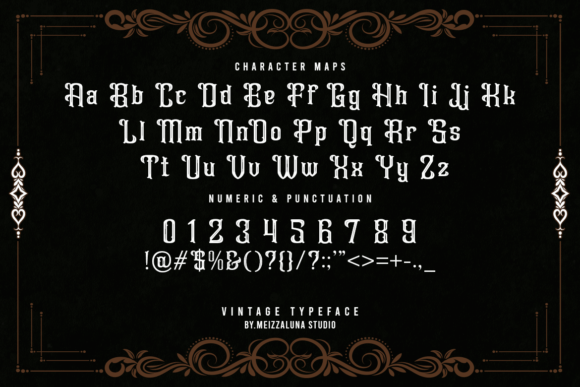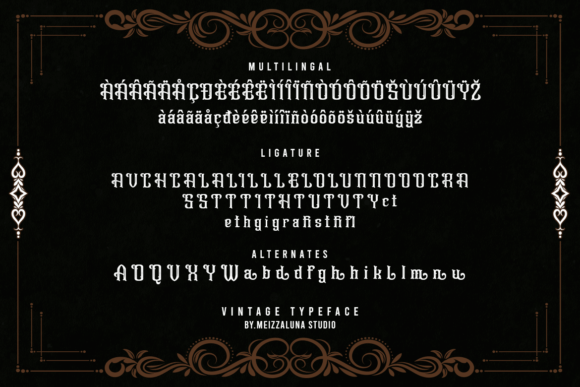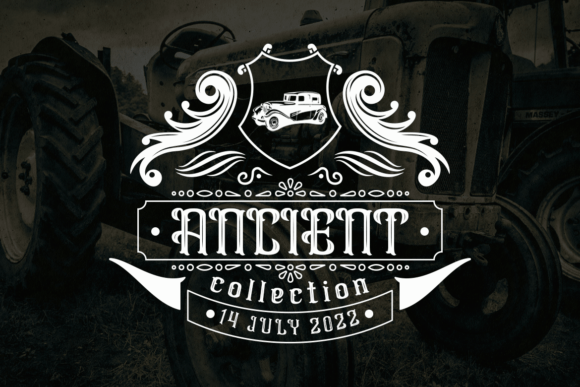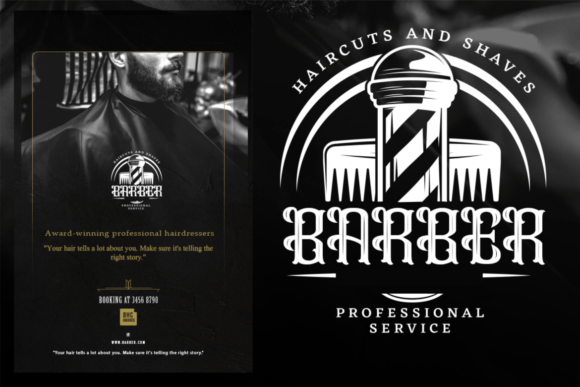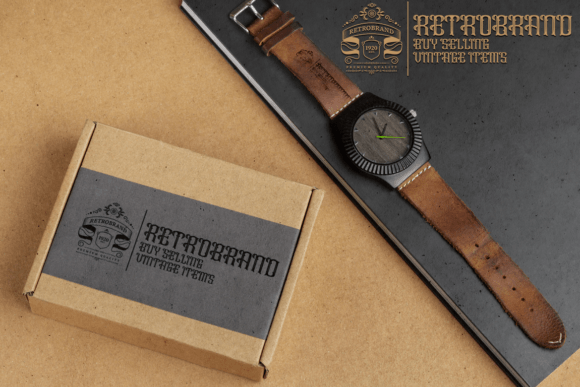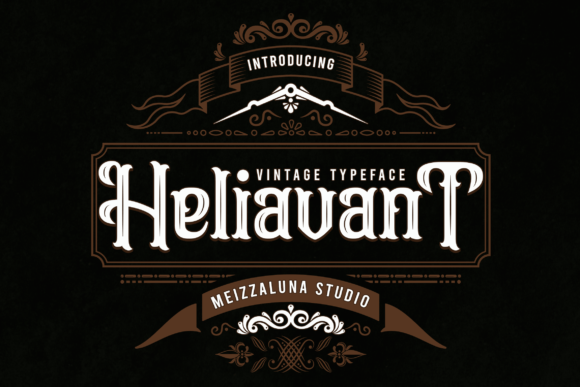
Heliavant Font: Elevate Your Designs with a Touch of Moody Elegance
In the world of typography, fonts play a crucial role in setting the tone and aesthetic of a design. For creative projects that exude a moody, solemn, Victorian, or retro vibe, Heliavant Font is an exquisite blackletter font that can add a touch of sophistication and elegance. In this article, we’ll dive into the features and benefits of Heliavant Font, and explore how it can elevate your designs to new heights.
What is Heliavant Font?
Heliavant Font is a beautifully crafted blackletter font, designed specifically for creative projects that require a unique and captivating typographic style. With its intricate serif characters, Heliavant Font is perfect for adding a touch of drama and flair to labels, posters, banners, and other design elements.
Key Features of Heliavant Font
- Moody and Solemn Aesthetic: Heliavant Font boasts a distinctive blackletter style that evokes a sense of mystery and sophistication, making it ideal for designs that require a moody or solemn tone.
- Victorian and Retro Inspiration: The font’s intricate serif characters are inspired by traditional Victorian and retro typography, adding a touch of classic elegance to your designs.
- Serif Characters: The serif characters in Heliavant Font are meticulously crafted to provide a high level of legibility and readability, making it perfect for use in labels, posters, and other design elements.
- Versatile and Adaptable: Heliavant Font can be used in a wide range of design applications, from print materials like brochures and flyers to digital projects like social media graphics and website headers.
Benefits of Using Heliavant Font
So, why choose Heliavant Font for your design projects? Here are just a few benefits of using this exquisite blackletter font:
- Adds Visual Interest: Heliavant Font’s unique and intricate design elements can add a touch of visual interest to your designs, setting them apart from more generic fonts.
- Enhances Brand Identity: By incorporating Heliavant Font into your brand’s visual identity, you can create a distinctive and memorable aesthetic that resonates with your target audience.
- Boosts Creativity: With Heliavant Font, you can experiment with a range of design possibilities, from bold and dramatic statements to more subtle and sophisticated expressions.
Design Applications for Heliavant Font
Heliavant Font is an incredibly versatile font that can be used in a wide range of design applications, including:
- Labels and Packaging: Add a touch of elegance and sophistication to your product labels and packaging with Heliavant Font.
- Posters and Flyers: Create eye-catching posters and flyers with Heliavant Font’s bold and dramatic design elements.
- Banners and Signage: Use Heliavant Font to create stunning banners and signage that grab attention and leave a lasting impression.
- Digital Graphics: Incorporate Heliavant Font into your digital graphics, such as social media graphics, website headers, and email newsletters.
In conclusion, Heliavant Font is an exquisite blackletter font that can add a touch of moody elegance to your design projects. With its intricate serif characters, versatile design, and wide range of applications, Heliavant Font is the perfect choice for designers and crafters looking to create unique and captivating designs. Whether you’re working on a print or digital project, Heliavant Font is sure to elevate your designs to new heights.